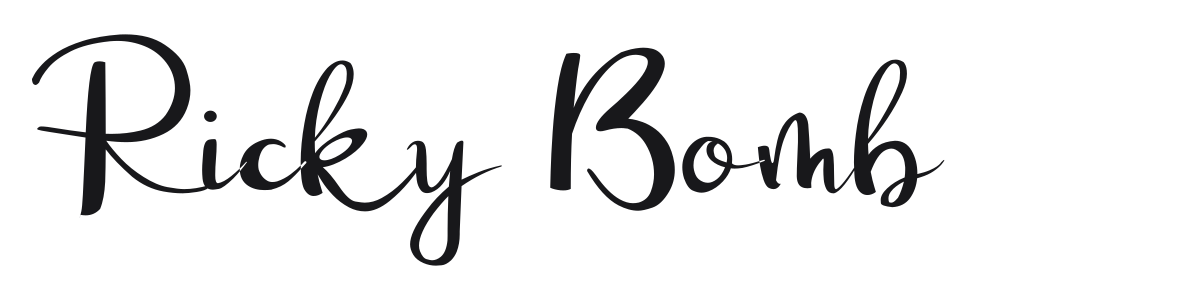
Ricky Bomb
Ricky Bomb is a lively casual script from Nomlimofont with flowing connected strokes and a confident calligraphic swing. High contrast between thick downstrokes and wispy hairlines gives it an elegant edge without feeling stiff. The bouncy rhythm and looping swashes make it a go-to for wedding stationery, branding, and lifestyle packaging.